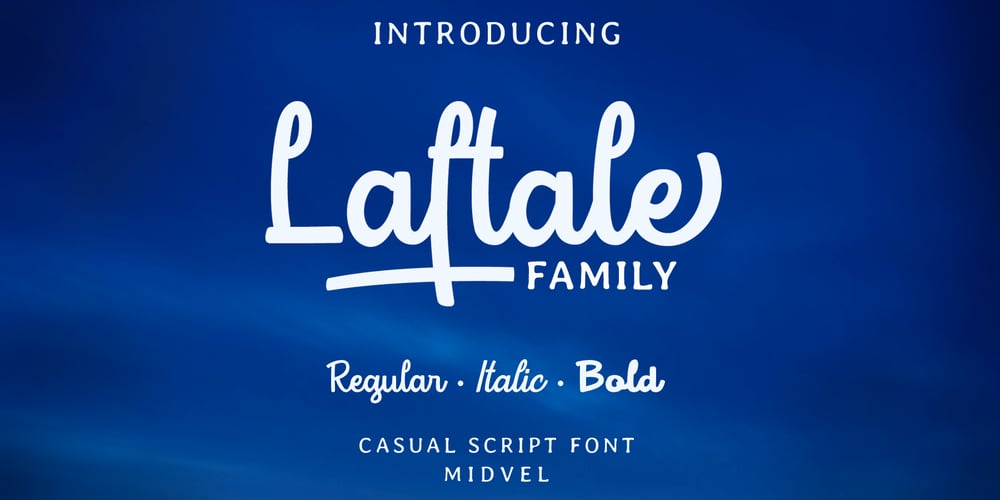
Laftale Font Family was designed by Ahmad Ja’far Shadiq and published by Midvel. Laftale contains 3 styles and family package options. Fresh script font, Laftale. Laftale help you to make brush font easily. Laftale is casual script typeface with clean characters. This font comes in three style, regular, Italic, and bold. This font is perfect to design especially poster, logo, apparel, book cover, greeting card, birthday card, quotes, advertising poster, and anymore. Explore Opentype features to get unique combination.Feature :· Uppercase· Lowercase· Number· Punctuation· Multilingual (Accented Letters)· Ligature· Swash· Contextual Alternate· Style set (01-03)· PUA Encoded Characters